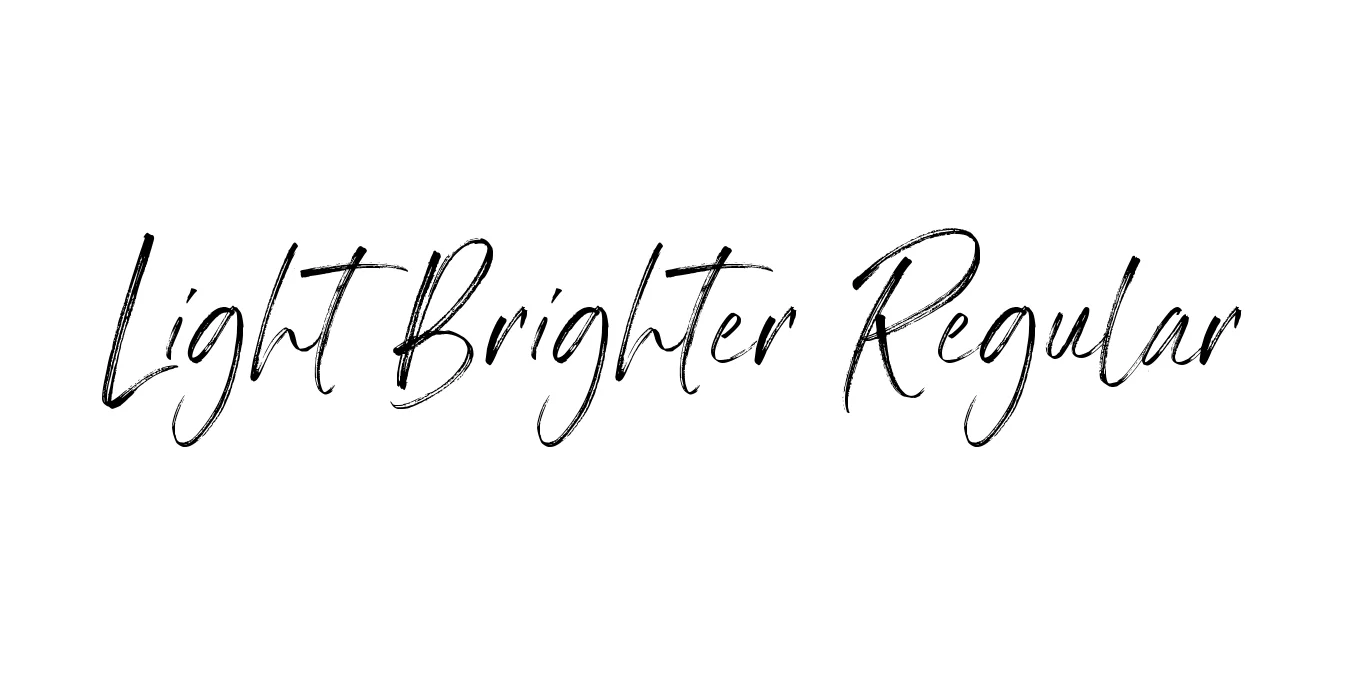
Light Brighter Regular
Designed by Dinan Studio
| Font Name | Light Brighter |
| Category | Handwritten Script |
| Designer | Dinan Studio |
Light Brighter Regular is an elegant and sophisticated handwritten script font designed to convey a sense of natural beauty and personal touch. The typeface features fluid, sweeping strokes and a rhythmic flow that mimics authentic penmanship, making it a standout choice for high-end creative projects. Its delicate balance of thin connectors and expressive letterforms ensures that it remains legible while providing a high-fashion, boutique aesthetic.
The history of this font is rooted in the modern calligraphy movement, where the goal was to create a digital asset that feels organic and bespoke. Ideal for branding and luxury packaging, Light Brighter Regular has become a go-to resource for designers working on wedding stationery, editorial layouts, and social media branding. Its versatility allows it to bridge the gap between traditional elegance and contemporary minimalism effortlessly.
Light Brighter Regular Best Uses
Adds a romantic and personalized touch to formal event stationery.
Perfect for fashion, beauty, and lifestyle brands seeking a signature look.
Enhances quotes and promotional posts with a stylish, handcrafted feel.
Elevates product labels and boxes for luxury and boutique goods.